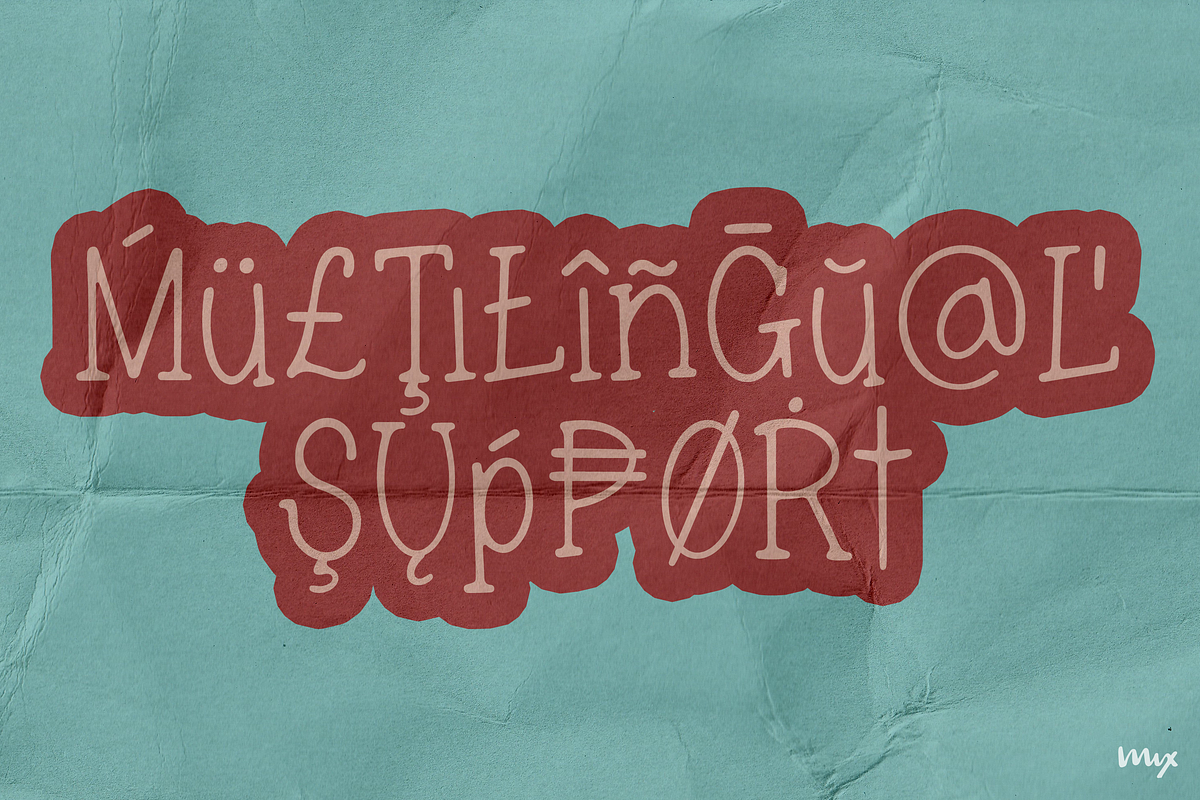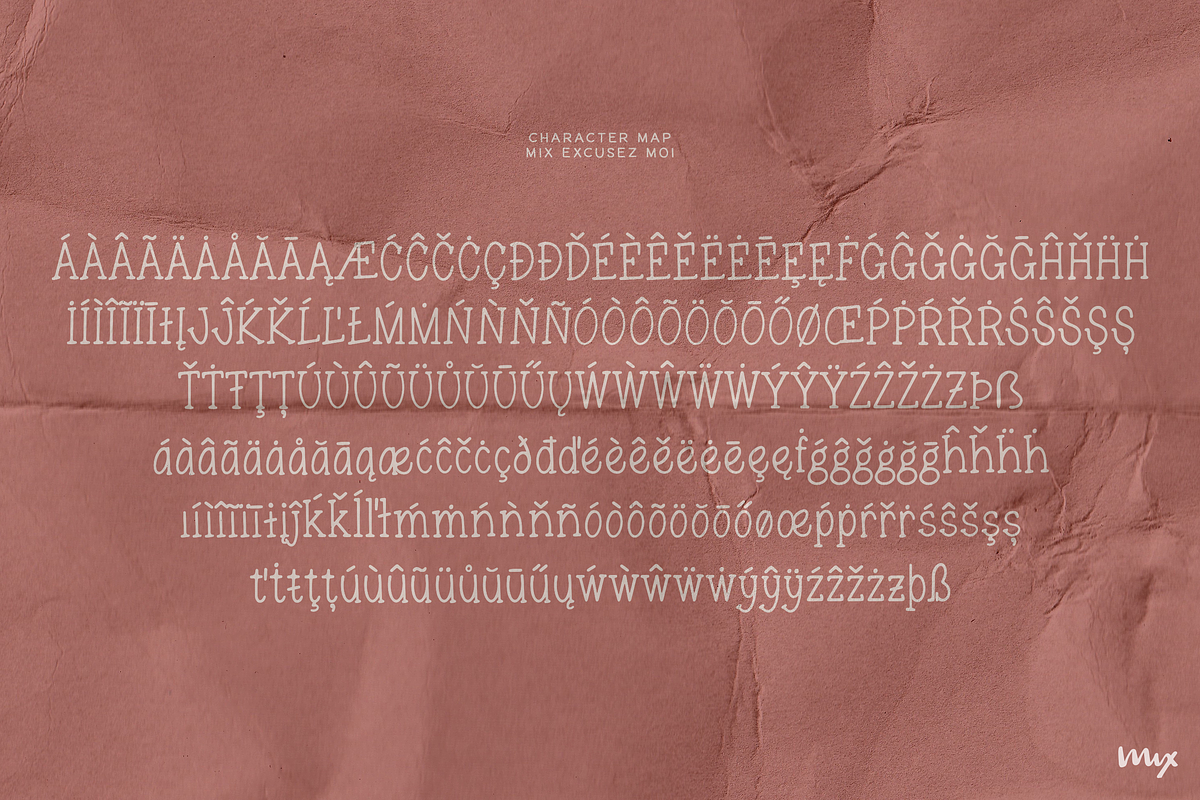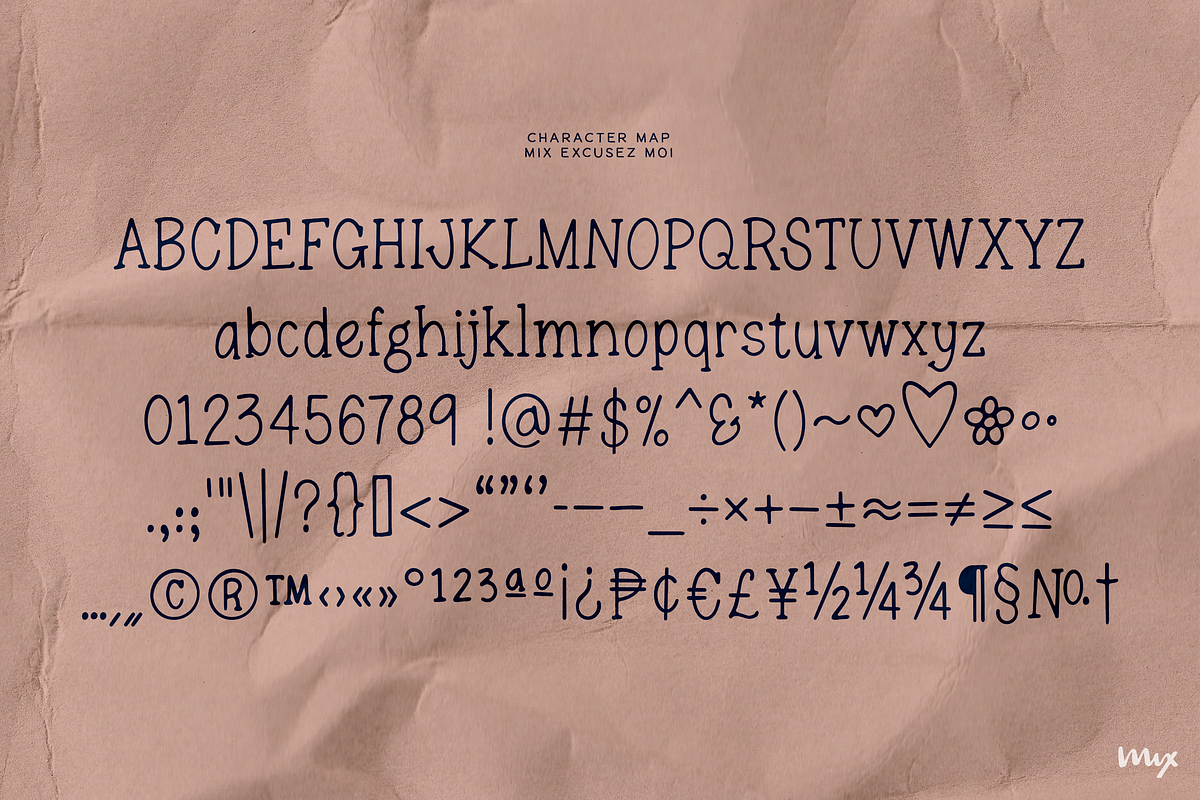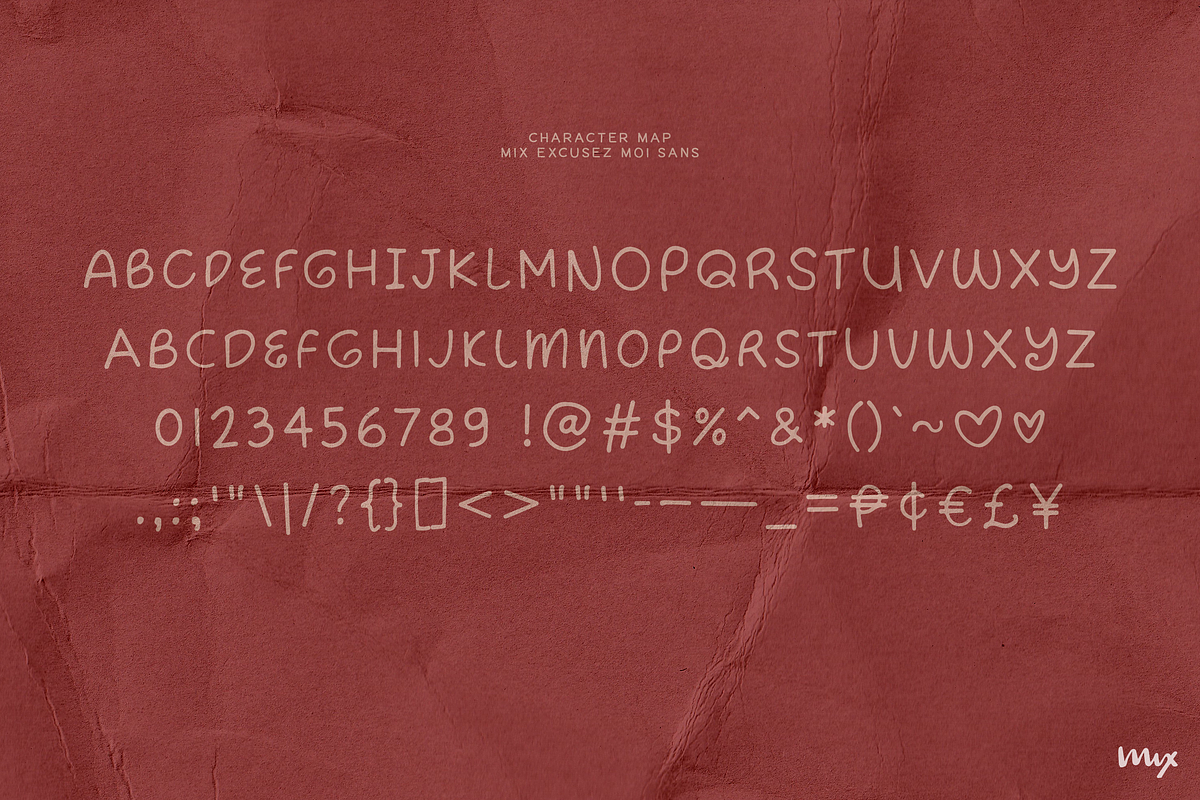
Excusez Moi - A Charming Font Duo
EXCUSEZ MOI: An Elegant Serif & Complementing Sans Font Pair
Introducing Mix Excusez Moi, a sophisticated serif font duo with a playful yet polished twist. This font pair is designed to add a touch of elegance to your projects, combining the refined character of a classic serif with a charming, hand-drawn sans serif companion.
Main Features:
- Primary Font: EXCUSEZ MOI – A timeless serif that blends traditional style with a modern flair.
- Complementing Font: EXCUSEZ MOI SANS – A casual, hand-drawn sans serif that pairs effortlessly with its serif counterpart.
- Multilingual Support: Extensive language support with a multitude of accented glyphs, ensuring your text looks perfect in any language.
- Versatility: Ideal for branding, wedding invitations, packaging, editorial design, and more.
- Logos & Branding: Craft memorable logos that stand out with a mix of elegance and approachability.
- Editorial Design: Perfect for magazine layouts, book covers, and more, giving your text a professional and stylish look.
- Invitations: Whether it’s for weddings, parties, or corporate events, Mix Excusez Moi adds a touch of class to any invitation.
- Packaging: From luxury skincare to artisan foods, this font pair enhances product packaging with its versatile style.
Why Choose Mix Excusez Moi?
- Timeless Design: Whether you’re working on modern or classic projects, this font pair adapts beautifully to any context.
- Complete Package: With both serif and sans serif options, you have everything you need for cohesive and versatile designs.
- Attention to Detail: Every letterform is carefully crafted to ensure legibility and aesthetic appeal across different applications.